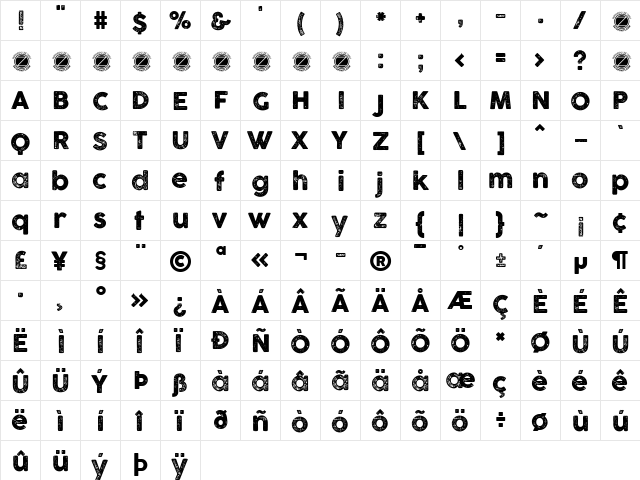
COCOGOOSE LETTERPRESS Regular
| Foundry | Studio kmzero |
| Designer | Cosimo Lorenzo Pancini |
Design Context for COCOGOOSE LETTERPRESS Typeface
COCOGOOSE LETTERPRESS is a composed and adaptable typeface that performs quietly and consistently across a wide range of design contexts.